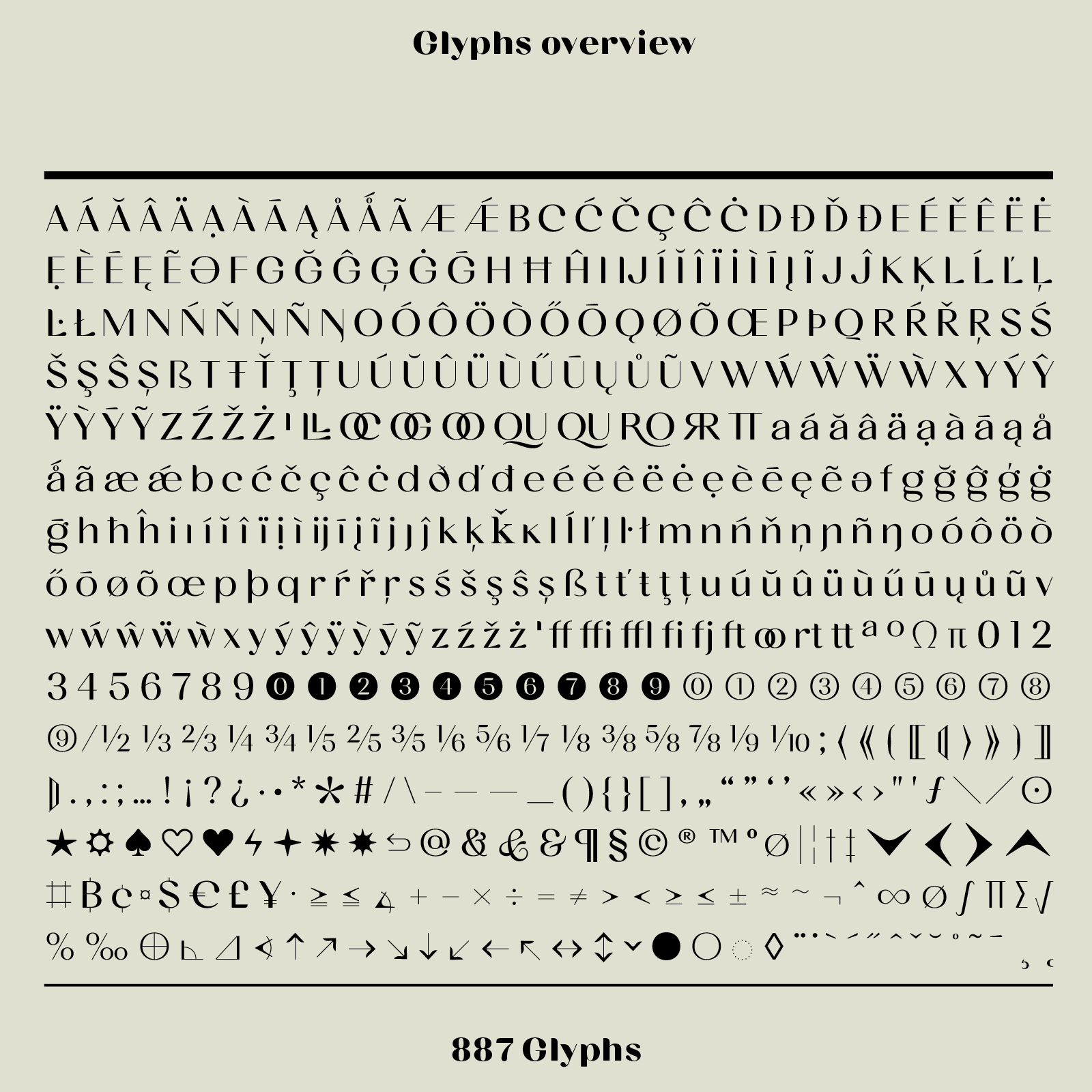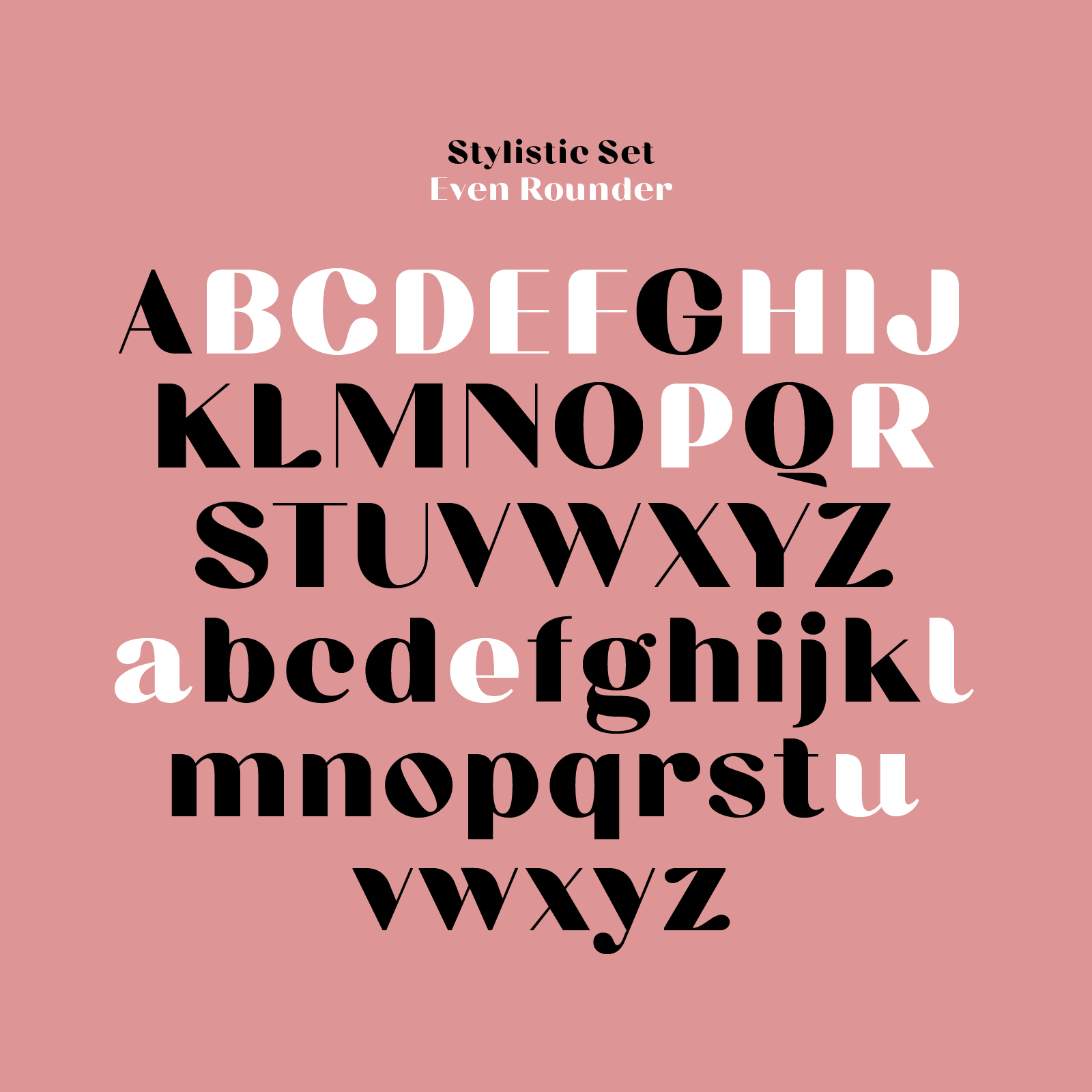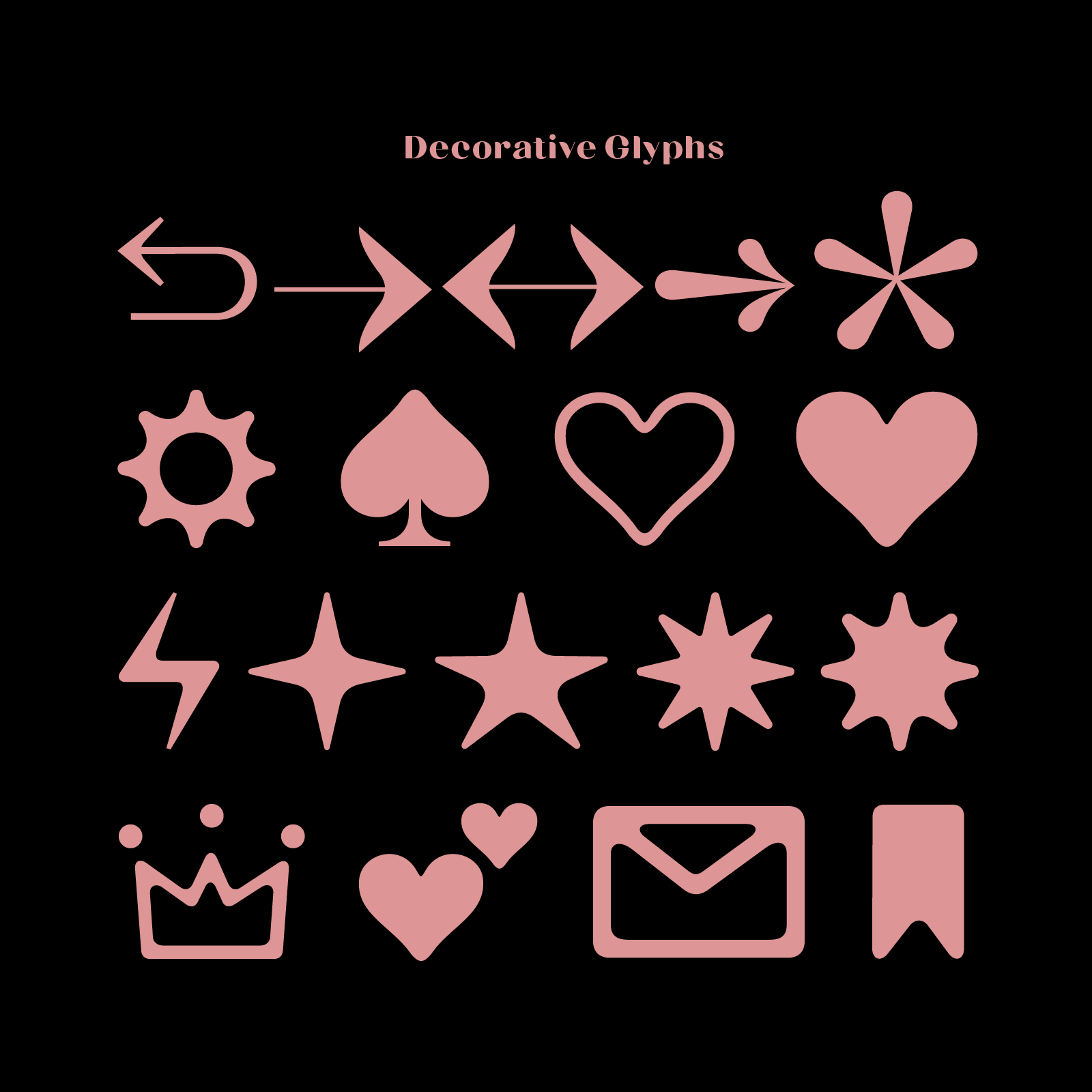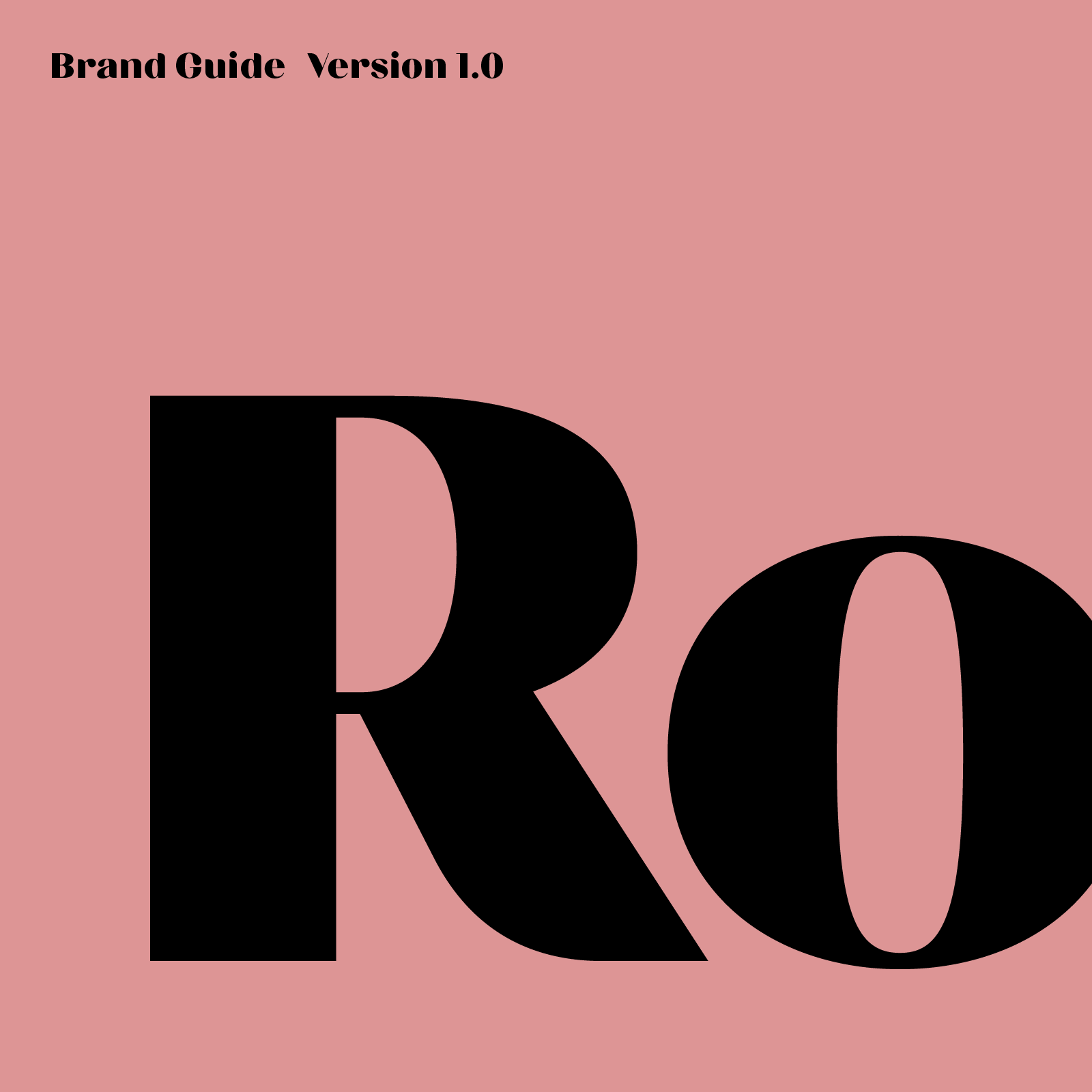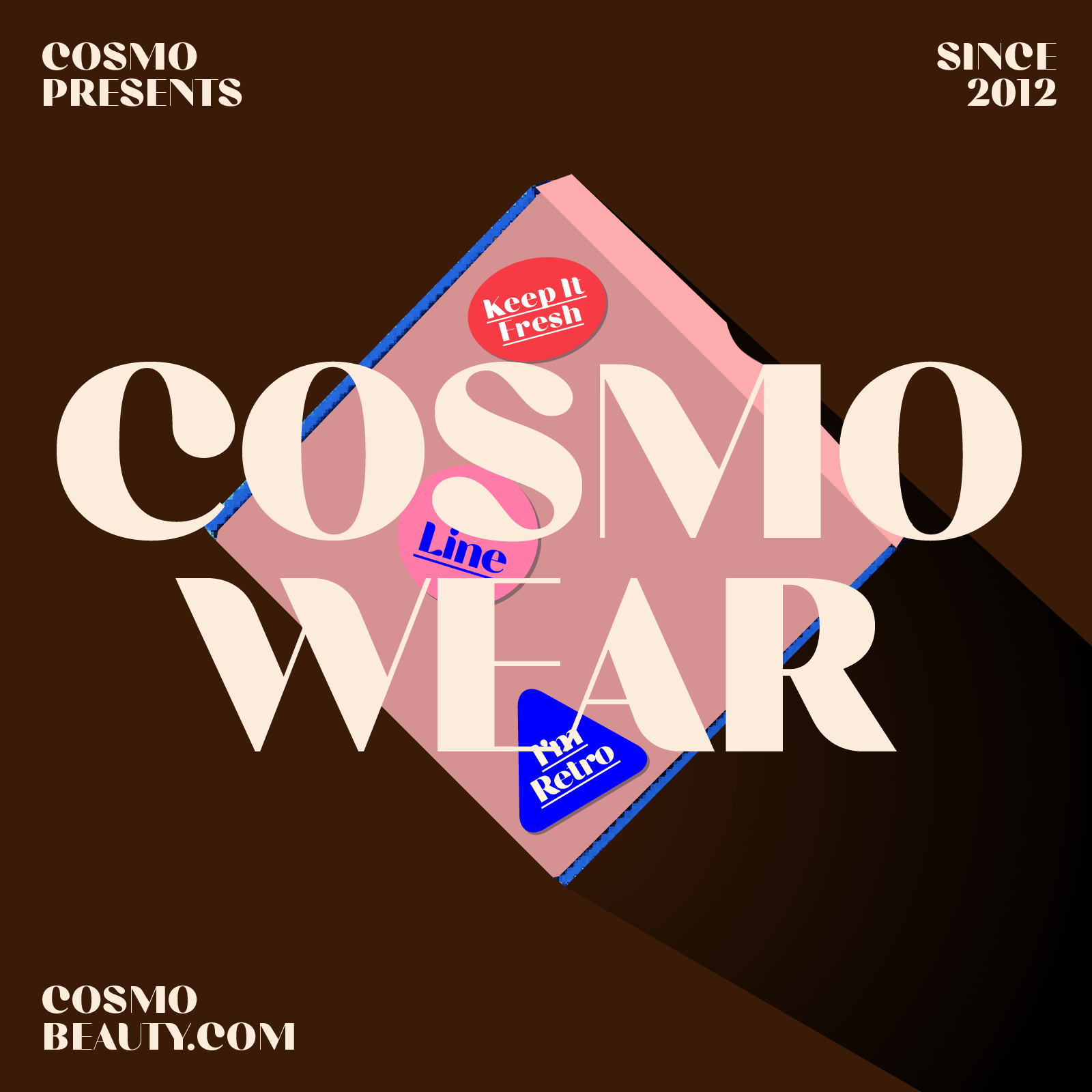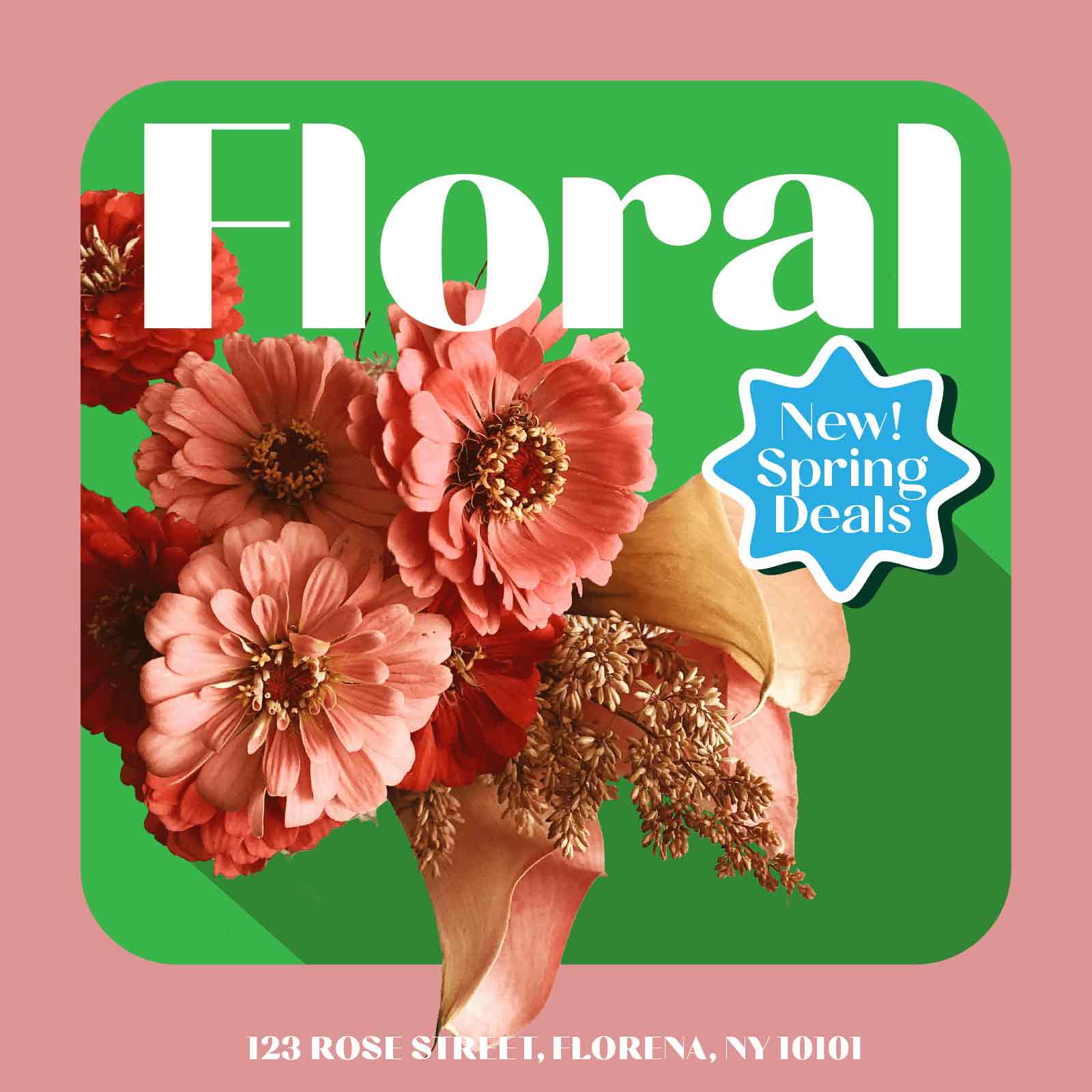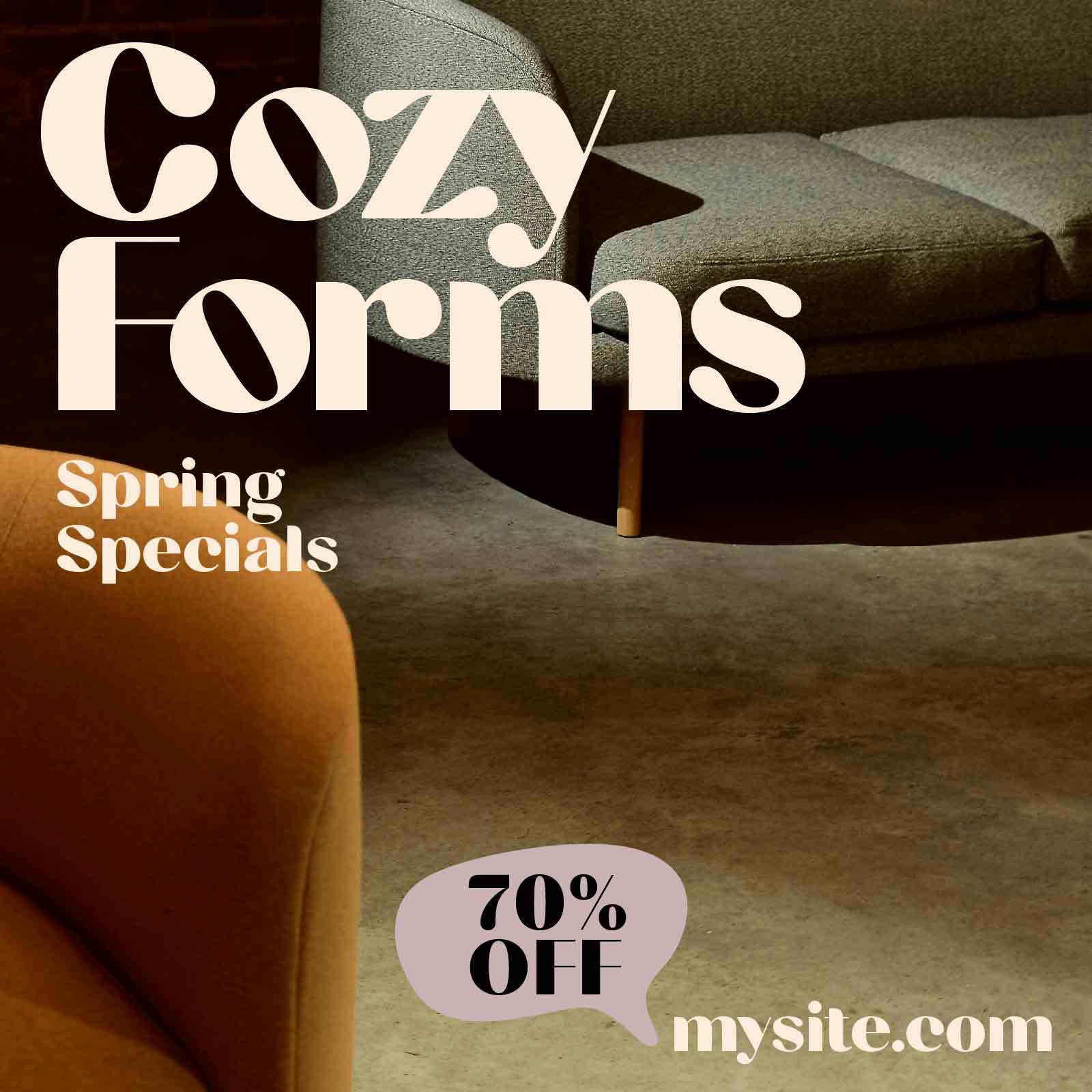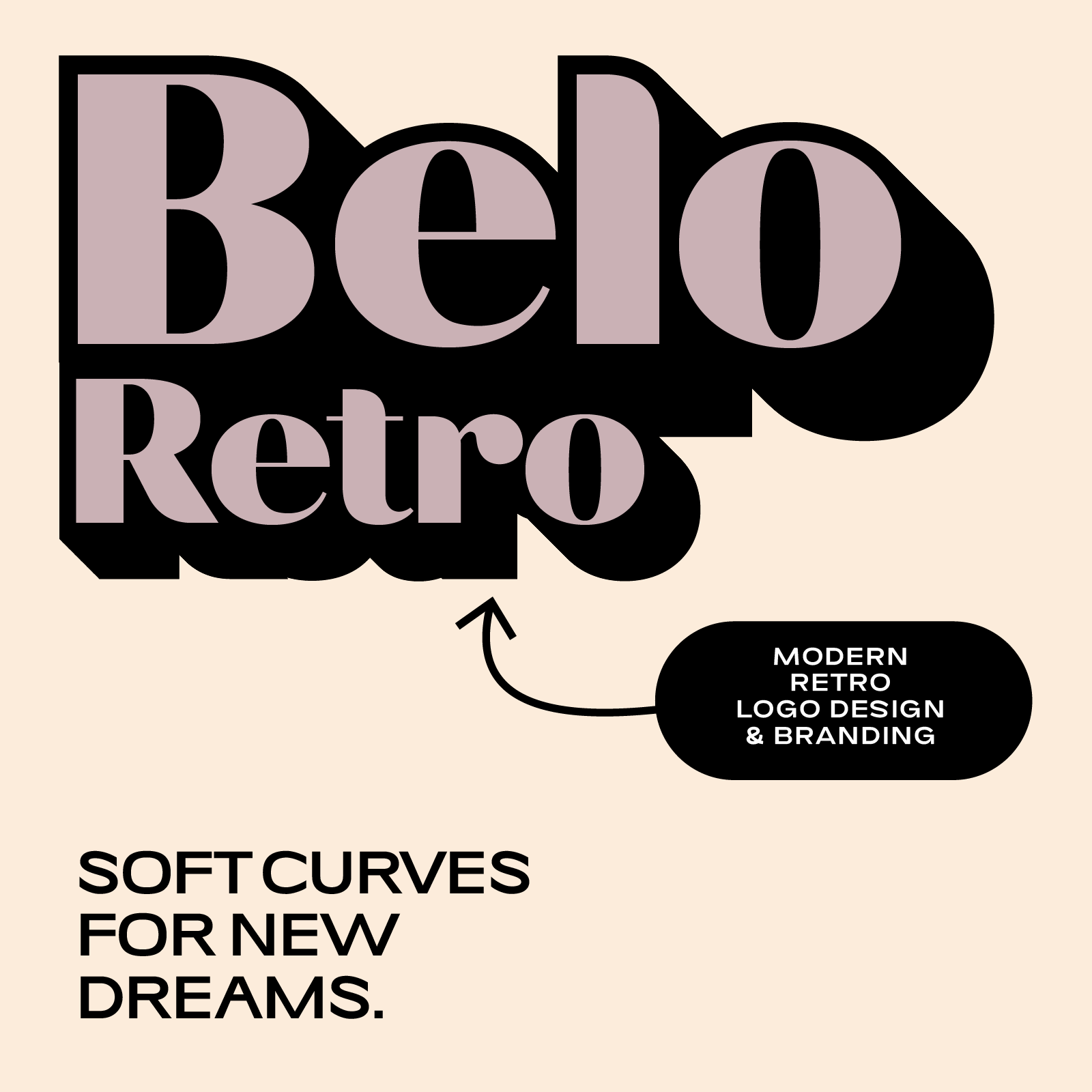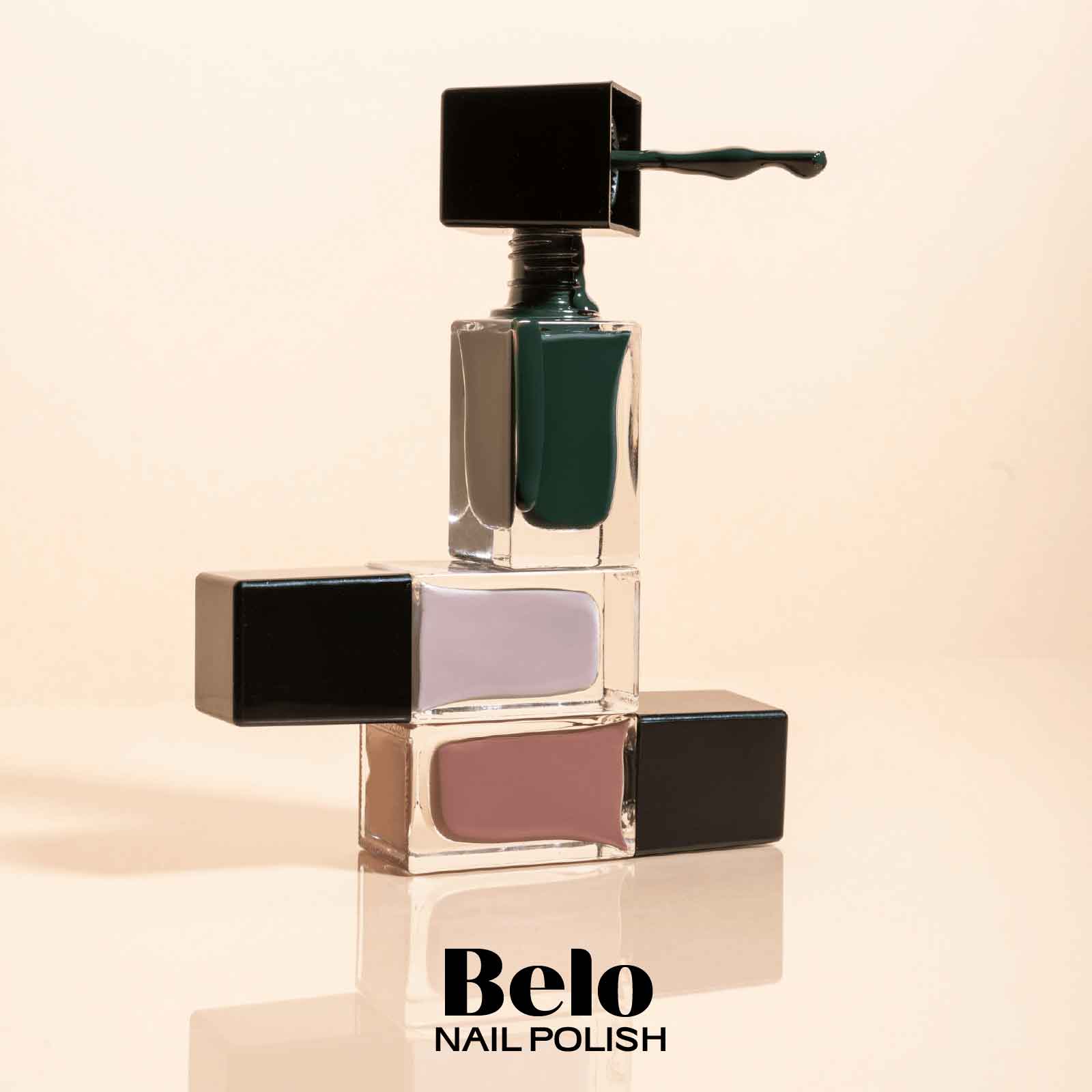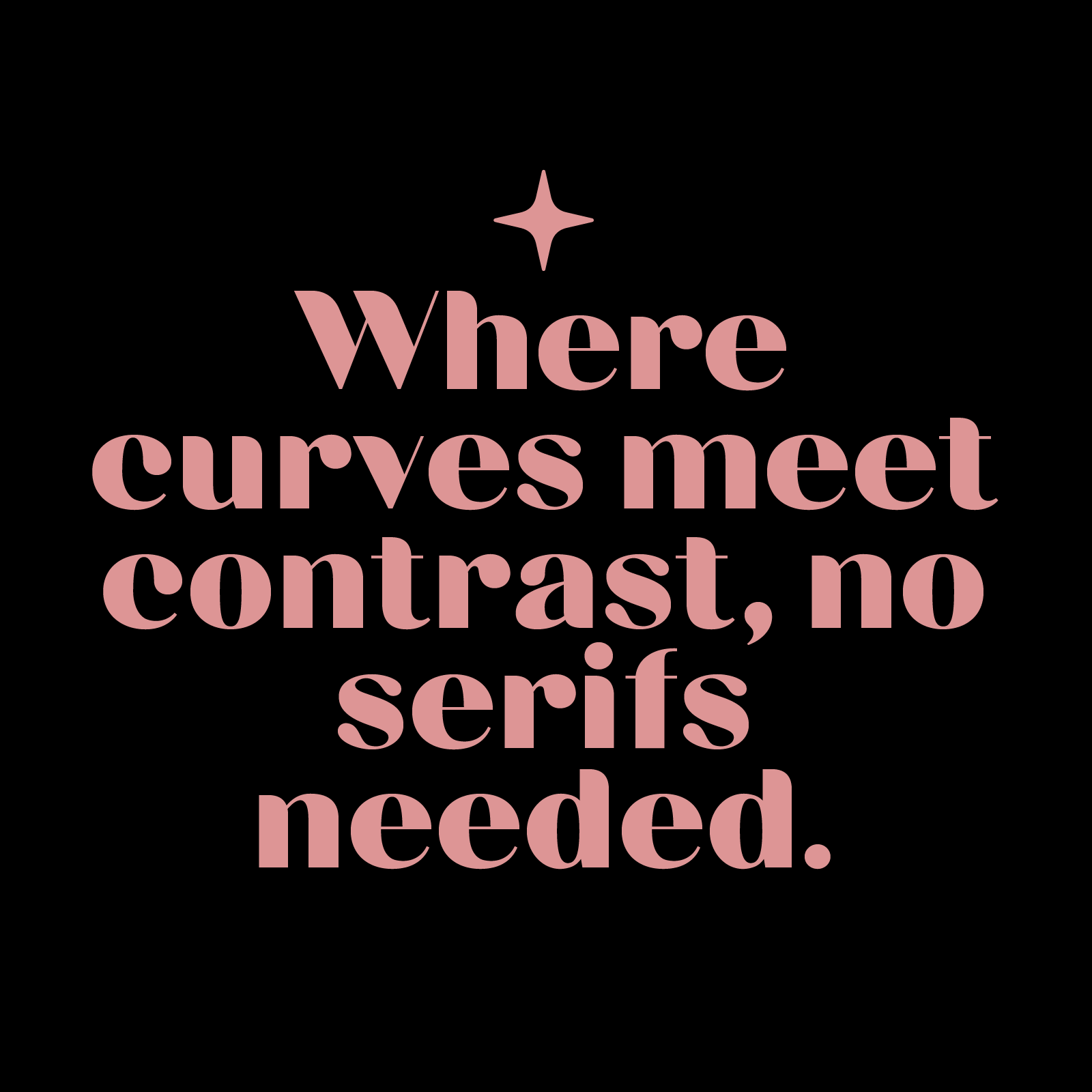
Chez, rounded contrast font
Bauhaus Chez, Rounded High-Contrast Font for Beauty Brands
Chez is a rounded font with contrast, perfect for beauty, fashion, and food branding. Chez has round stems and bubble terminals for a soft, personal feel. Organic and cozy. Available in 9 single weights and as a full family.